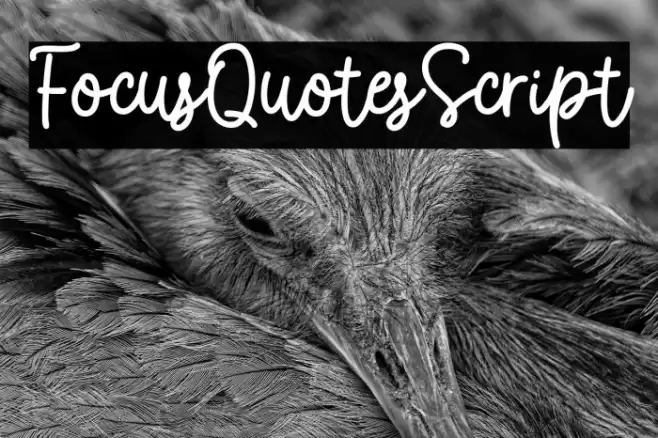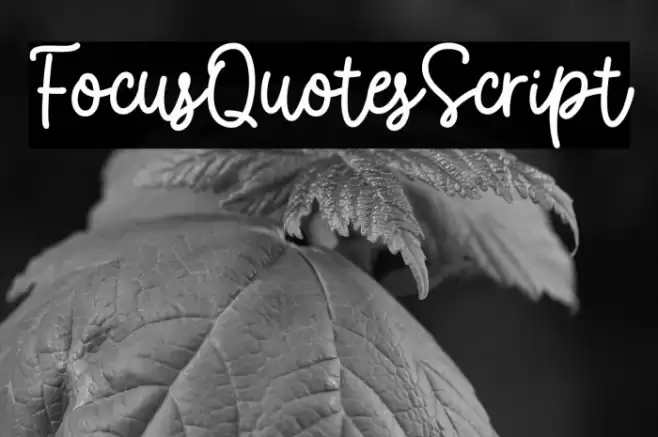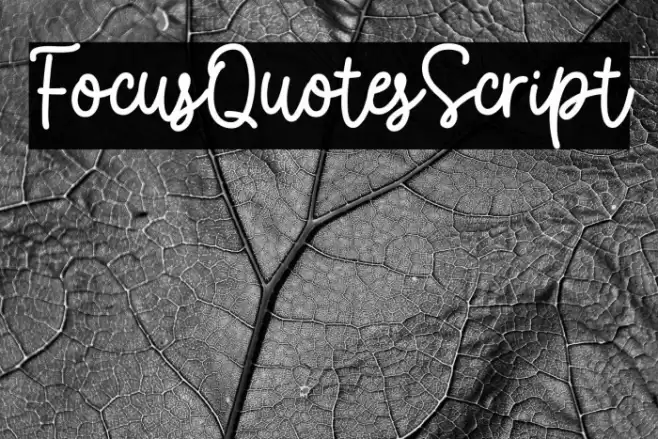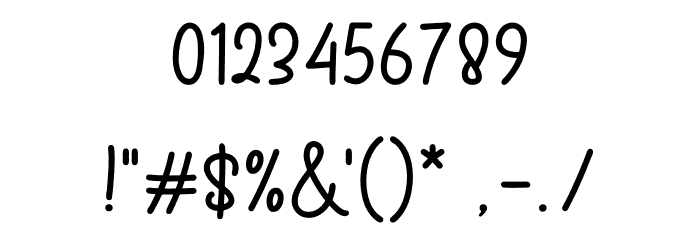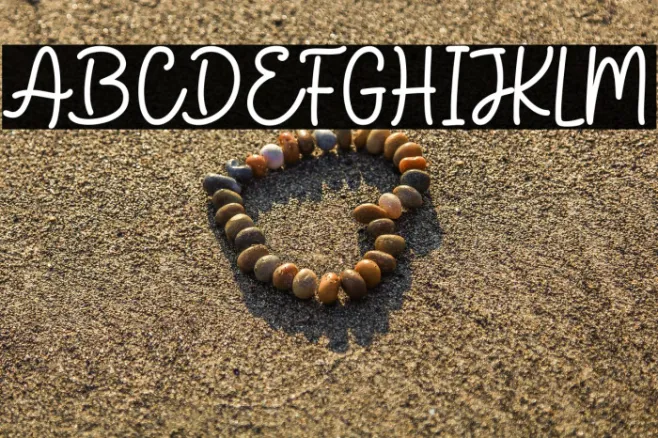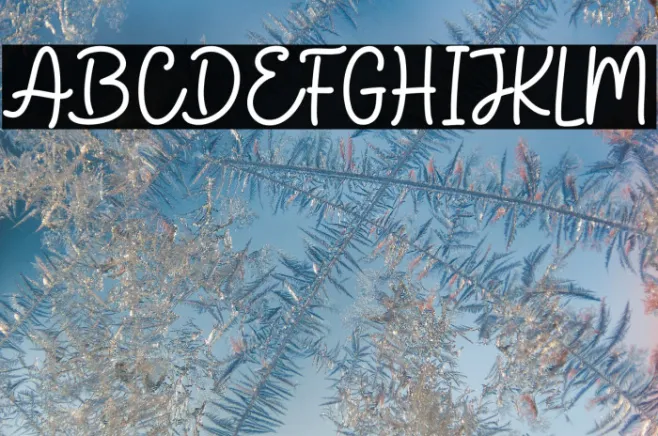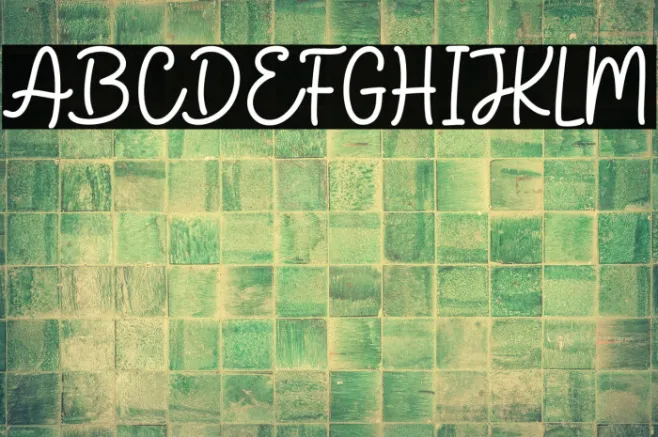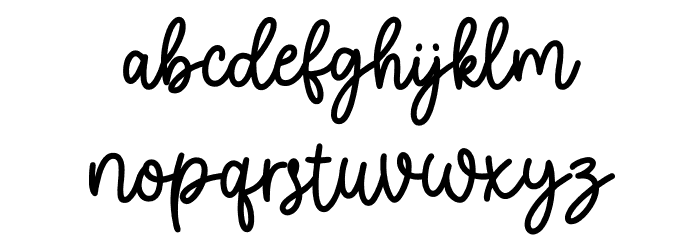
FocusQuotesScript Font
FocusQuotesScript Description
This font features a playful and casual script style, characterized by its smooth, flowing lines and rounded edges. The uppercase letters are bold and slightly slanted, giving a sense of movement and energy. The lowercase letters maintain a consistent flow, with connected strokes that enhance the handwritten feel. Numbers and special characters are designed to match the overall style, ensuring a cohesive look across all elements. The font exudes a friendly and approachable vibe, making it suitable for a variety of creative projects.
A playful and casual script font with smooth, flowing lines and rounded edges from Regular fonts.
- Font: FocusQuotesScript
- Proposed Projects: Ideal for greeting cards, invitations, social media graphics, and branding materials that require a personal touch.
- Overall Style: Casual, Playful
- Use Case: Logos, Headlines, Invitations